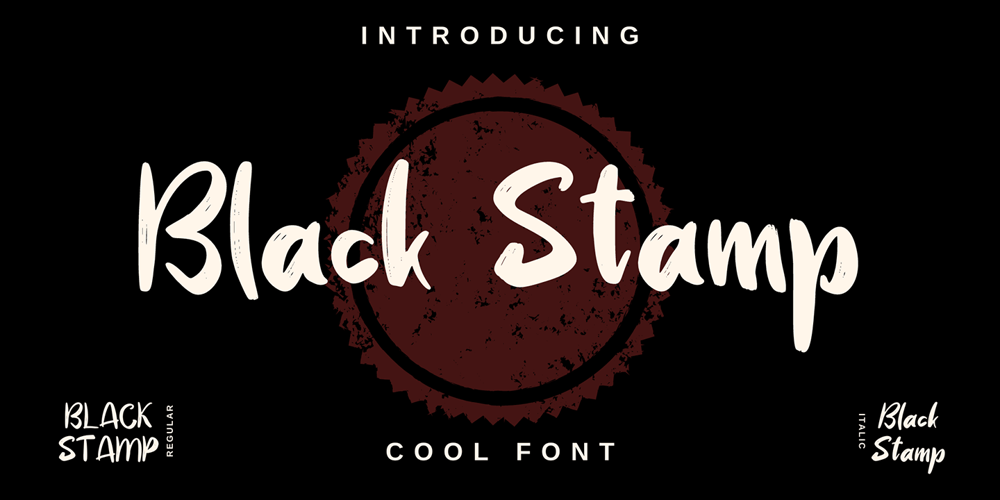
Black Stamp Font Family was designed by Stephanus Prabowo and published by Andrey Font Design. Black Stamp contains 2 styles and family package options. Black Stamp is a unique, strong, and original handwritten font. Natural and elegant, this font can be used on a wide variety of designs such as headlines, titles, headings, logos, branding, posters, invitations, books, and any other creative design.